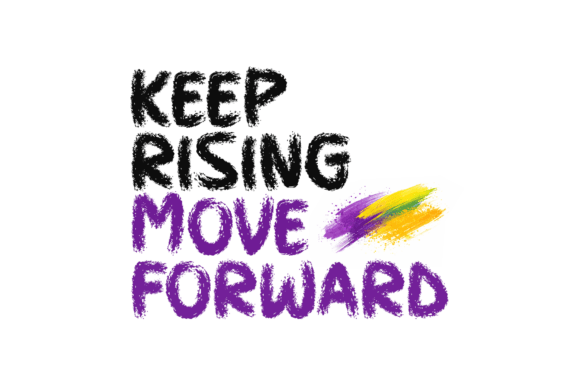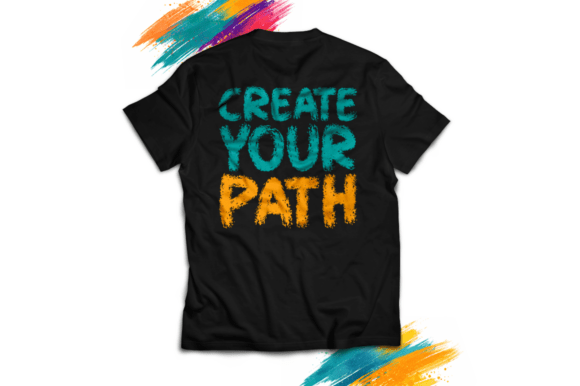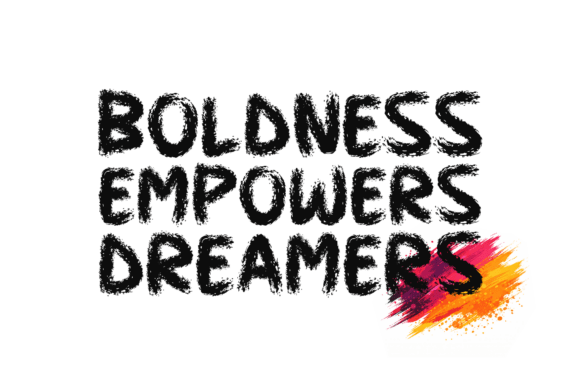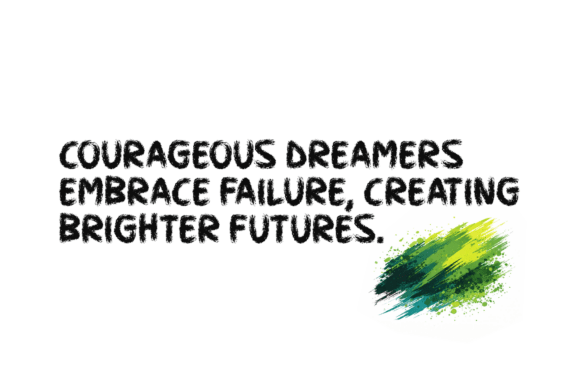
Introduction to Noise Stroke Font
Have you ever been working on a creative project and stumbled upon that perfect font that elevates your design from ordinary to extraordinary? For designers, this moment is pure magic – a spark of inspiration that sets the tone for the entire project. And for many, that font is the Noise Stroke Font.
With its bold brush display style and raw texture, the Noise Stroke Font is a design resource that adds a layer of depth and emotion to any creative project. Whether you’re working on a high-quality logo, a music cover, or a social media campaign, this font delivers a gritty yet modern aesthetic that’s sure to grab attention. And the best part? It’s available for free download, making it a valuable addition to any designer’s toolkit.
But what makes the Noise Stroke Font truly special is its ability to add a personal touch to your designs. With a transparent background and expressive strokes, this font is perfect for statement typography, apparel graphics, and any other project where you want to make a bold statement.
Key Features of Noise Stroke Font
- High-quality design resource with a unique, hand-drawn aesthetic, ideal for creative projects.
- Features a transparent background, allowing for easy layering and customization in design applications.
- Comes in a range of sizes, including small, medium, and large, to suit various design needs.
- Resolution is set at 300 DPI, ensuring crisp and clear typography in print and digital applications.
- Designed to be highly versatile, with a wide range of applications, from logos and branding to editorial and advertising content.
- Perfect for designers seeking a high-quality, unique font to elevate their creative project and stand out from the crowd.
Honest Review: Noise Stroke Font
I recently stumbled upon the Noise Stroke Font, and I must say, it’s been a game-changer for my design projects. This font is perfect for any creative project that requires a unique touch. The high quality and detailed design make it a valuable resource for any designer.
One of the standout features of the Noise Stroke Font is its transparent background, which makes it incredibly versatile and easy to work with. This feature allows designers to easily integrate the font into their designs without any unwanted background elements.
- Unique and detailed design
- High quality and transparent background
- Perfect for creative projects and design resources
- May not be suitable for body text due to its decorative nature
- May require additional styling to achieve desired effect
- Not suitable for small text sizes due to its intricate details
- ⚠️ May be overwhelming for simple designs
Overall, I’m thoroughly impressed with the Noise Stroke Font. It’s a fantastic addition to any designer’s toolkit, and I highly recommend it for any creative project. With its high quality design and transparent background, it’s sure to elevate any design to the next level.
Tips for Getting the Most Out of Noise Stroke Font
To get the most out of the Noise Stroke Font, experiment with different font sizes, colors, and styles to find the perfect look for your design. You can also use the font in combination with other design elements to create a unique and eye-catching visual effect.
The Noise Stroke Font is ideal for use in creative projects such as posters, flyers, and social media graphics. Its high-quality design and transparent background make it a versatile design resource for any project.